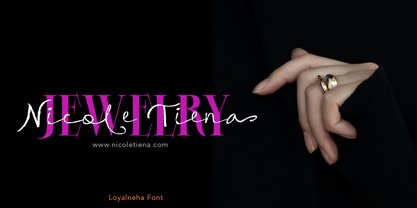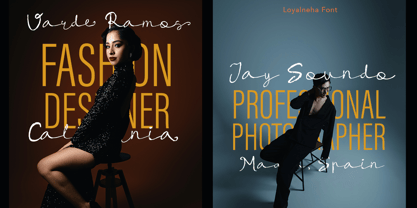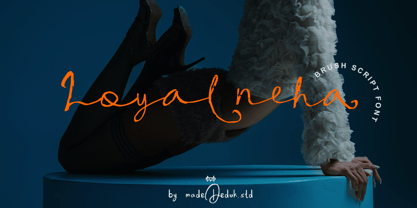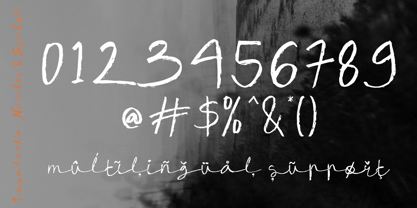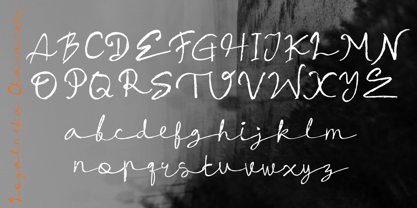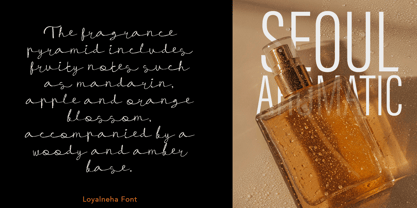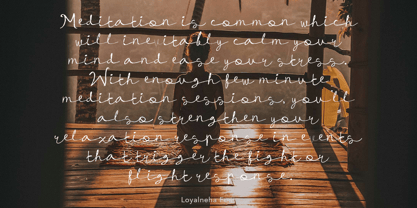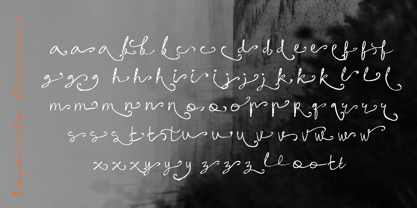
Loyalneha
by madeDeduk
The Loyalneha Font Family was designed by madededuk and published by madeDeduk. Loyalneha contains 1 styles.
Loyalneha is a realistic handwritten font to give an incredible impression for all your project design come with ligatures and Alternative to make everything look realistic handmade handwritten.
• Uppercase & Lowercase
• Number & Symbol
• International Glyphs
• Multilingual Support
• Ligature
• Alternative